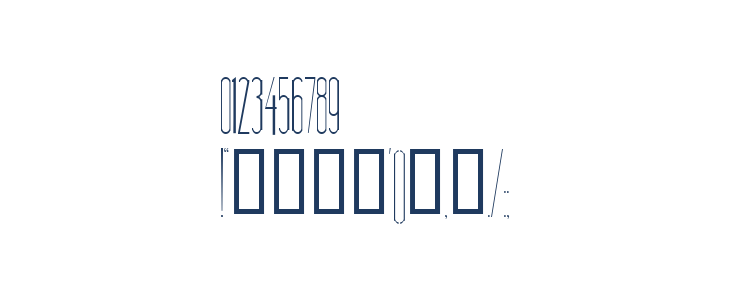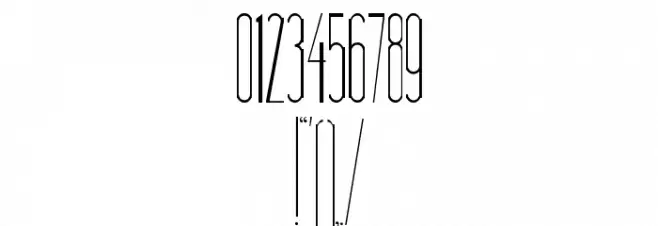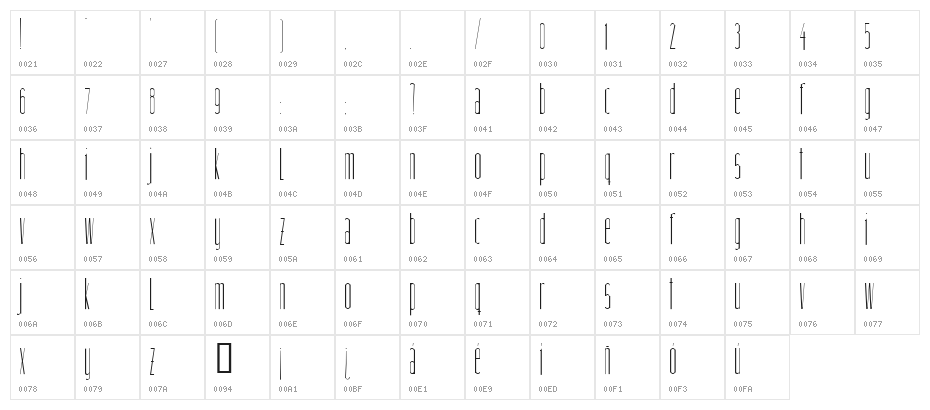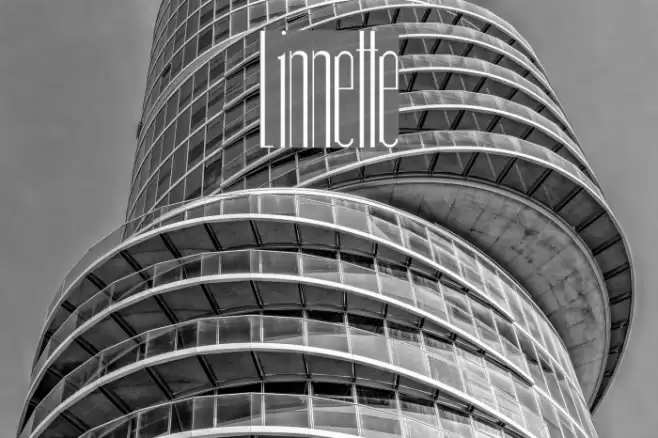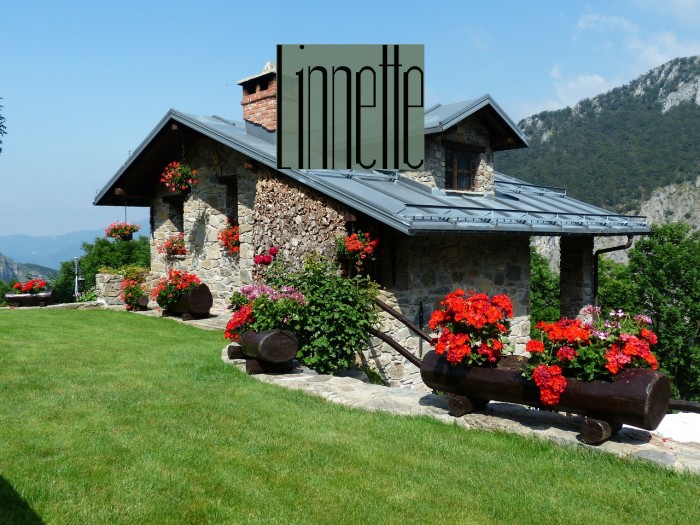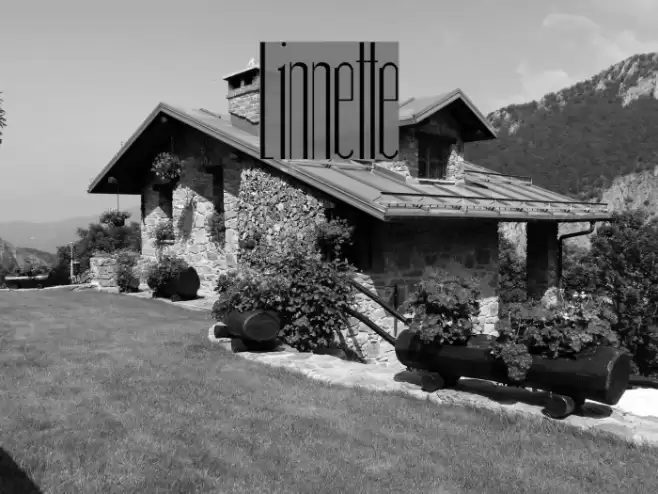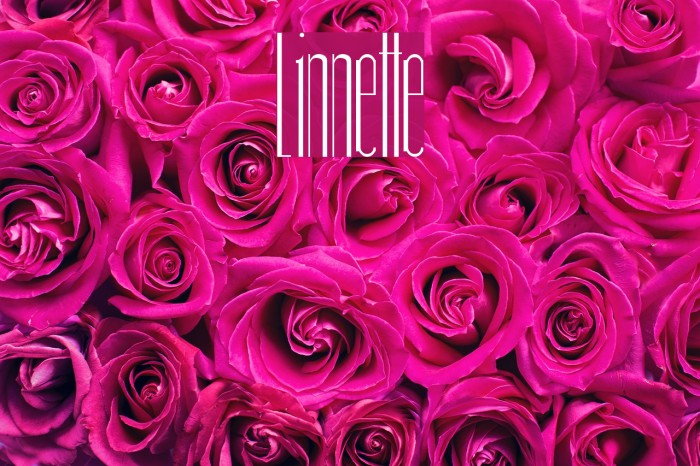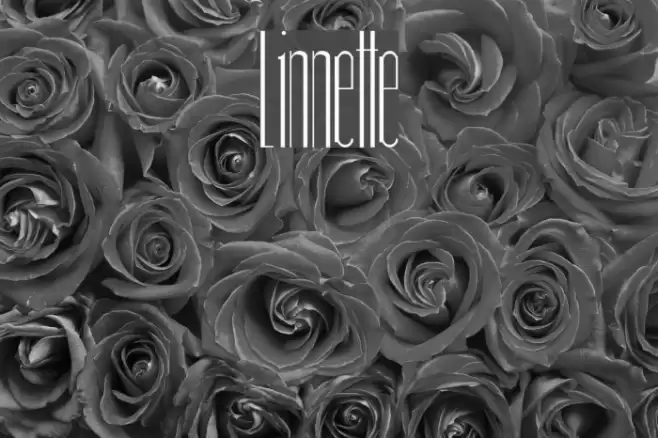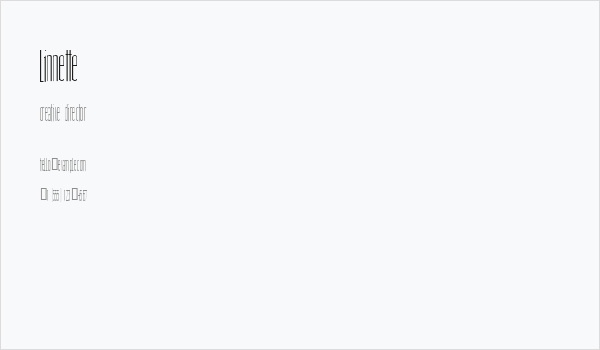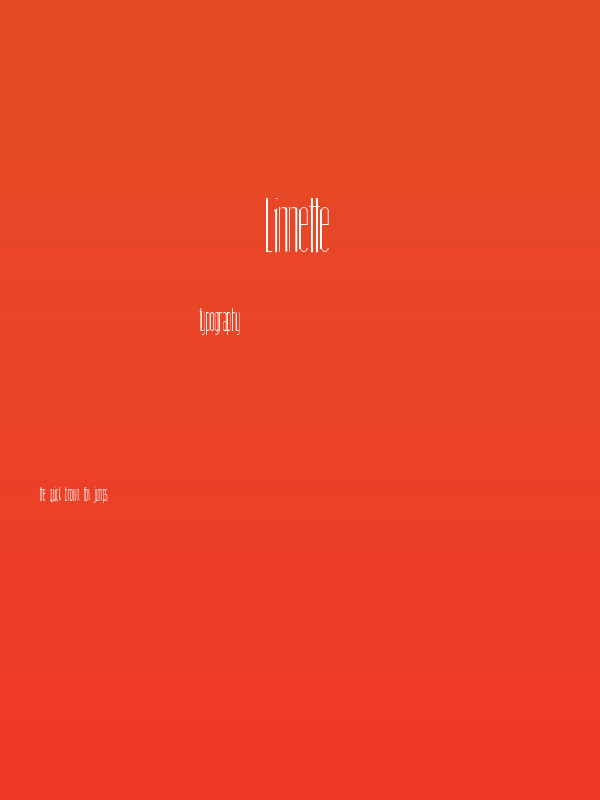
linnette Font
linnette Description
This font features an ultra-condensed and elongated design, characterized by its tall, narrow letterforms. The strokes are thin and consistent, giving it a sleek and modern appearance. The uppercase and lowercase letters maintain a uniform height, enhancing its vertical emphasis. Numbers and special characters follow the same narrow and tall structure, ensuring a cohesive look across all elements. The minimalistic design and high legibility make it suitable for various creative applications.
| Proposed Projects | Ideal for fashion magazines, luxury branding, modern posters, and minimalist design projects. |